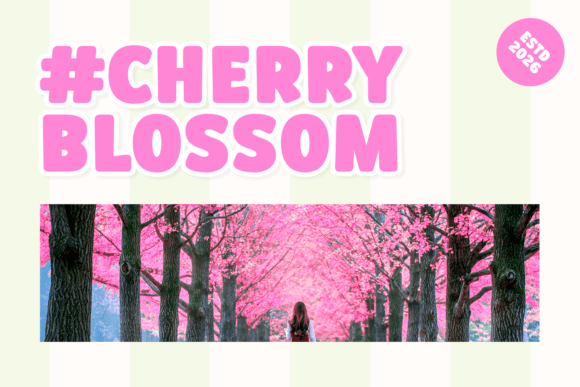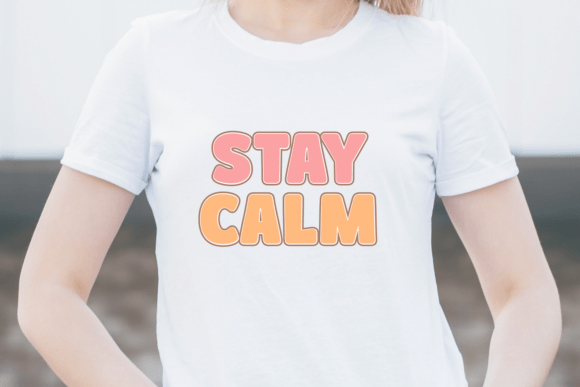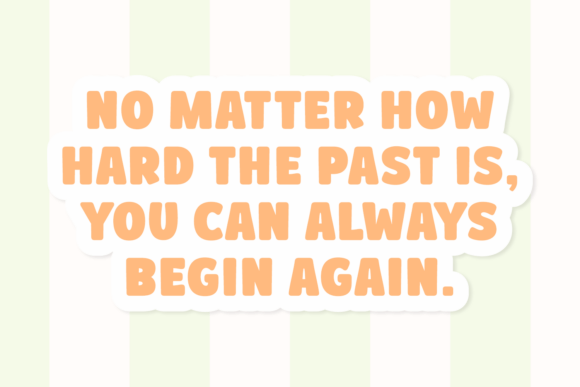
Introduction to Make Sugar Font
Make Sugar: A Bold Display Font Satisfy your design cravings with Make Sugar, a heavy-weight display font that packs a punch of personality.
Featuring ultra-thick, rounded letterforms with a subtle retro flair, this font is built for maximum impact Its chunky silhouette makes it an unbeatable choice for sticker designs, bold t-shirt graphics, food packaging, and high-energy social media headers.
Key Features of Make Sugar Font
Why Choose Make Sugar Font?
Make Sugar Font offers exceptional quality and versatility, making it a valuable addition to your design toolkit. Whether you’re creating for personal projects or commercial use, Make Sugar Font delivers professional results.